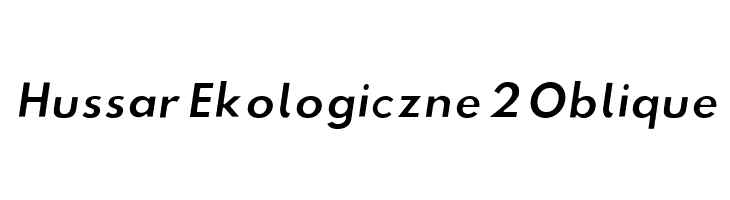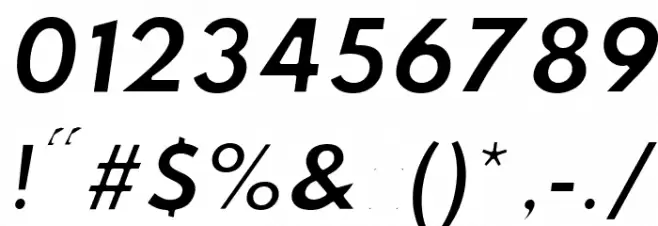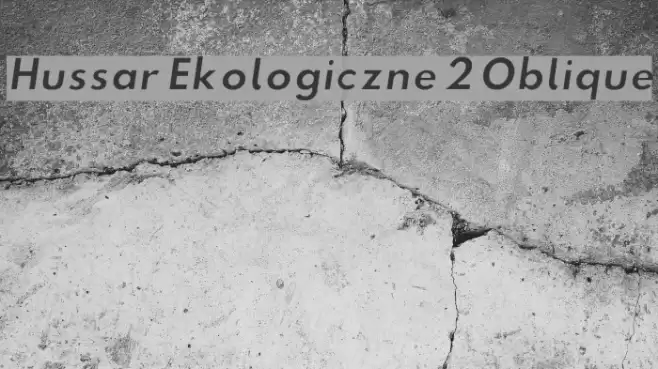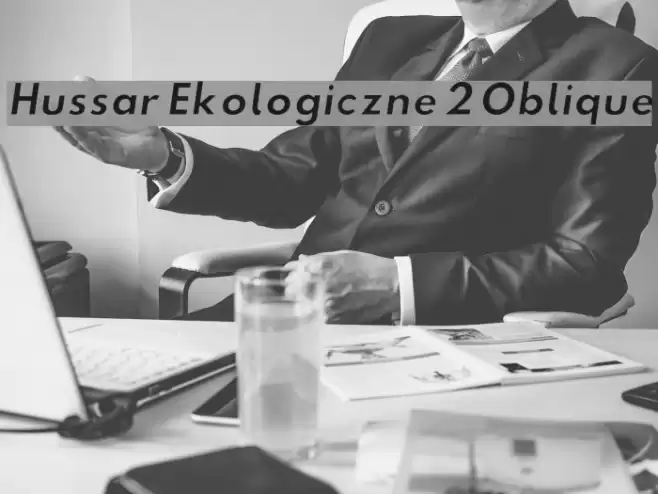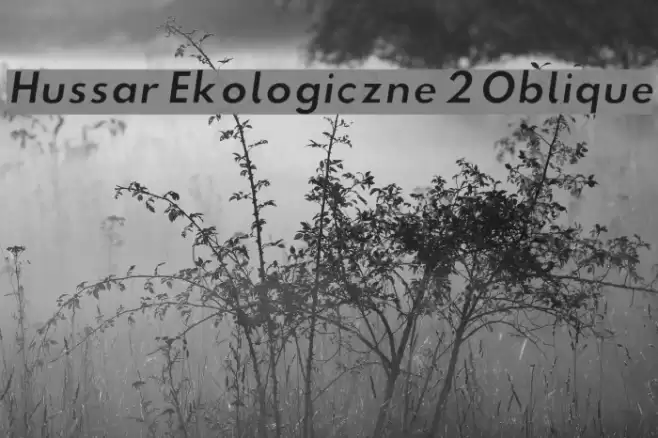
Hussar Ekologiczne 2 Oblique Font
Hussar Ekologiczne 2 Oblique Description
This font features a sleek, modern design with an oblique style, giving it a dynamic and forward-leaning appearance. The characters are well-proportioned, with a slight slant that adds a sense of motion and elegance. The uppercase letters are bold and confident, while the lowercase letters maintain a consistent flow with rounded edges. The numerals are clear and easy to read, making them suitable for various applications. Special characters are thoughtfully designed, maintaining the overall aesthetic of the font. The stroke contrast is medium, providing a balanced look that is neither too stark nor too subtle.
| Use Case | Headlines, Body text, Logos |
| Proposed Projects | Ideal for branding projects, modern websites, advertising materials, and editorial design. |